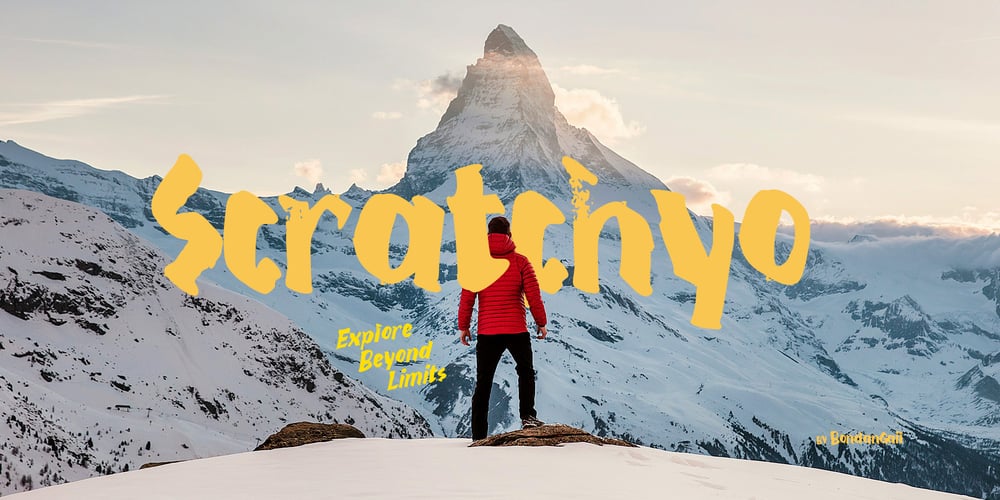
Scratchyo
Scratchyo font
Scratchyo Font Family was designed by Wahyu Eka Prasetya, Bondan Gail Saputro and published by BondanGail. Scratchyo contains 2 styles and family package options. Scratchyo” is a playful, handwritten-inspired font that embodies a sense of adventure and spontaneity. With dynamic shapes and uneven edges, each letter captures the essence of a carefree spirit. The bold and whimsical design, enhanced by splatter textures, invites exploration and creativity. An ideal choice for outdoor and adventure-themed projects, posters, or logos.This font is perfect for brands aiming to connect with a youthful audience, evoking feelings of excitement and wonder. Whether used in promotional materials or digital content, “Scratchyo” adds a lively touch that resonates with those who seek adventure in nature and life.